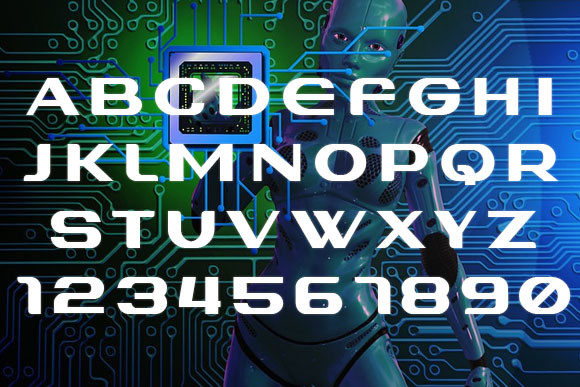
Unleash the Futuristic Vibe with Angry Cyborg Font
In the realm of digital design, typography plays a crucial role in conveying the intended message and aesthetic of a project. For those seeking to infuse their creations with a futuristic and techno-inspired edge, the Angry Cyborg Font is an exceptional choice. This awesome display typeface is designed to elevate your projects with its unique blend of style and technological flair.
Exploring Angry Cyborg Font
Angry Cyborg is not just another font; it’s a statement piece for your designs. It comes in two remarkable variants: Regular and 3D. This versatility allows designers to choose the perfect version to match their project’s tone and style. Whether you’re working on a futuristic website, a sci-fi movie poster, or an innovative app design, Angry Cyborg Font is poised to add a superb, stylish look that captivates your audience.
Key Features of Angry Cyborg Font
- Techno-Inspired Design: The font boasts a design that screams futuristic, making it perfect for projects that require a techno edge.
- Regular and 3D Variants: Choose between a sleek, 2D appearance or a more pronounced, 3D effect to make your text pop.
- Display Typeface: Designed specifically for display purposes, Angry Cyborg stands out at larger sizes, ideal for headlines and titles.
For designers and crafters, the quest for the perfect font can be endless. Angry Cyborg Font offers several benefits that make it a valuable addition to your typographic arsenal:
- Time-Saving: With Angry Cyborg, you can achieve that futuristic look without spending hours designing a custom typeface.
- Consistency: Using a unique font like Angry Cyborg helps maintain consistency across your projects, reinforcing your brand’s visual identity.
- Creativity Boost: Sometimes, all it takes is the right font to spark creativity. Angry Cyborg’s distinctive style can inspire new ideas and perspectives for your designs.
Angry Cyborg Font is more than just a typeface; it’s a design statement that can transform your projects with its futuristic and techno-inspired charm. Whether you’re a professional designer or a DIY crafter, this font offers a simple yet powerful way to enhance your creations. By incorporating Angry Cyborg into your design toolkit, you’ll be well-equipped to produce stunning, futuristic projects that stand out in any field.
So, why wait? Dive into the world of futuristic typography with Angry Cyborg Font and watch your designs leap into the future.